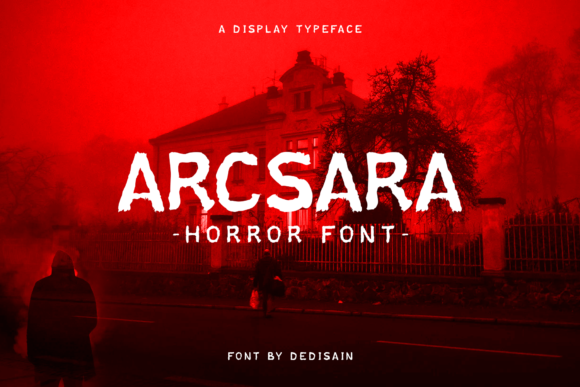
The Spooky Charm of Arcsara Font: A Designer’s Delight
I’ll never forget the time I was working on a Halloween-themed project for a client, and I just couldn’t find the right font to capture the spooky essence of the season. The client wanted something that was a little quirky, a little eerie, and a lot of fun. After hours of scouring the internet, I stumbled upon Arcsara Font, and it was love at first sight! 💕
Arcsara is a scary and spooky display font that’s perfect for a wide variety of Halloween contexts. Its unique blend of quirky and eerie elements makes it an excellent choice for designers, crafters, and creative hobbyists looking to add a touch of macabre magic to their projects.
An Honest Review of Arcsara Font
What I Love About Arcsara Font
• ✨ Unique and quirky design that’s perfect for Halloween-themed projects
• ✅ Highly legible, even at smaller sizes
• 🎃 Excellent for use on a variety of materials, from invitations to social media graphics
• 💻 Works beautifully on both digital and print platforms
While Arcsara Font is an excellent choice for many projects, there are a few things to keep in mind: 🤔
• ⚠️ Some of the characters may appear a bit distorted at very small sizes, so it’s best to use it at larger sizes for optimal results
• ⚠️ The font may not be suitable for body text, as it’s primarily designed for display purposes
A Practical Guide to Using Arcsara Font
The Backstory of Arcsara Font
According to its designers, Arcsara Font was inspired by the spooky and mysterious atmosphere of old abandoned mansions. The font’s unique design is meant to evoke the feeling of eerie corridors and creepy crawlies. 💀
Q: What type of projects is Arcsara Font best suited for?
A: Arcsara Font is perfect for Halloween-themed projects, such as invitations, social media graphics, and party decorations.
Q: Is Arcsara Font available in different weights or styles?
A: Currently, Arcsara Font is available in a single weight, but its designers may release additional weights or styles in the future.